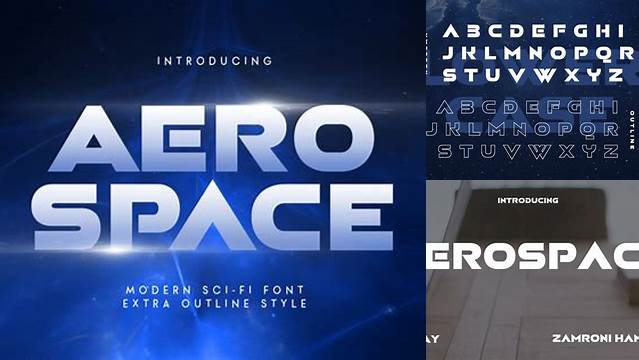
Let's dive into the world of fonts, especially when you're looking for that perfect aerospace bold font for your Canva projects. Finding the right font can be a game-changer, whether you're designing a logo, creating social media graphics, or working on a presentation. And the best part? You can get it for free! So, buckle up, and let's explore everything you need to know about getting your hands on this awesome font.
What is Aerospace Bold Font?
First off, what exactly is aerospace bold font? Well, it's a typeface that's designed to look modern, strong, and, well, a bit futuristic! Think of it as the font equivalent of a sleek spaceship. It usually features clean lines, a substantial weight, and a bold appearance, making it perfect for headlines, titles, and anything else where you want to make a statement. This font style is ideal if you're aiming for a techy, innovative, or powerful vibe in your designs. It’s versatile enough to be used in various projects, from branding to marketing materials.
Why Use Aerospace Bold Font in Canva?
So, why should you even bother using aerospace bold font in Canva? Simple: it can elevate your designs. Canva is an amazing tool, but sometimes the default fonts just don't cut it. Adding a custom font like aerospace bold can make your projects stand out. Imagine you're creating a poster for a tech conference. Using a standard font might make it look bland, but slapping on some aerospace bold? Bam! Suddenly, it looks professional, modern, and eye-catching. Plus, Canva makes it super easy to upload and use custom fonts, so there's really no excuse not to.
Using Aerospace Bold Font in Your Designs
Okay, you've got aerospace bold font in Canva. Now, let's talk about how to use it effectively. This font is all about making a statement, so it's perfect for headlines, titles, and logos. Use it sparingly to draw attention to key elements in your design. Pair it with simpler, more readable fonts for body text to ensure a good balance. For example, you could use aerospace bold for your headlines and a clean sans-serif font like Open Sans or Lato for the body text. Also, play around with the font size, color, and spacing to see what looks best. Remember, good design is all about experimentation!
Tips for Pairing Aerospace Bold Font with Other Fonts
Pairing aerospace bold font with the right complementary fonts can make your designs sing. Since aerospace bold is quite dominant, you'll want to choose fonts that are more understated. Think clean sans-serif fonts like Roboto, Montserrat, or Nunito. These fonts are easy to read and won't compete with the boldness of aerospace bold. You can also consider using a simple serif font like Merriweather or Lora for a bit of contrast. The key is to create a visual hierarchy where the aerospace bold font stands out while the other fonts provide support and readability. Don't be afraid to mix and match until you find a combination that works for your specific project. A great tool to help you find font pairings is FontPair, which offers suggestions based on different font styles.
Designing Logos with Aerospace Bold Font
If you're designing a logo, aerospace bold font can be an excellent choice, especially if you want your brand to convey strength, innovation, or modernity. When using it in a logo, focus on simplicity and clarity. The font should be easily recognizable and memorable. Consider using just the initials of your company name or a short, impactful word. Play around with different font sizes and spacing to see what looks best. You can also add a simple graphic element to complement the font. For example, a stylized rocket or circuit board could reinforce the aerospace theme. Remember, your logo is the face of your brand, so it's worth taking the time to get it just right. Make sure the logo looks good in both large and small sizes, and test it on different backgrounds to ensure it's versatile.
Creating Social Media Graphics with Aerospace Bold Font
For social media graphics, aerospace bold font can help you create eye-catching visuals that grab attention. Use it for headlines, calls to action, and important announcements. Keep your text concise and to the point, as people tend to scroll quickly through their feeds. Use high-quality images or illustrations to complement the font. For example, if you're promoting a tech gadget, use a sleek, modern photo of the product. Also, pay attention to your brand colors and use them consistently in your graphics. This will help create a cohesive and recognizable brand identity. Don't forget to optimize your graphics for different social media platforms. Each platform has its own recommended image sizes, so make sure your graphics are properly sized and don't get cropped or distorted.